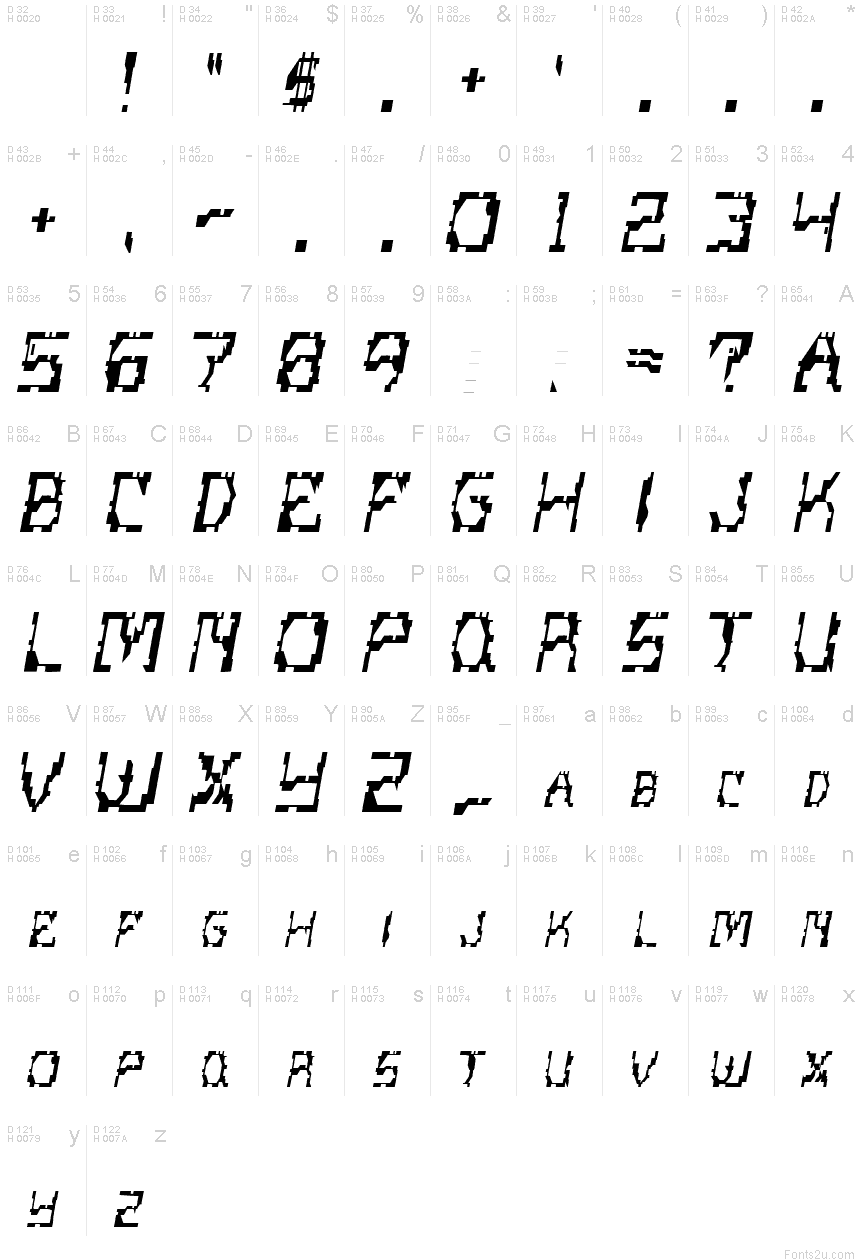
Scritzy Regular
Scritzy, by Ray Larabie, is a free eroded display font with a hard-edged, chopped-up rhythm that feels halfway between distressed signage and jagged techno lettering. The caps lean on blunt diagonals, blocky slabs, and bite-like gaps that keep the letters looking fractured rather than rough.
That makes it a natural fit for poster titles, game logos, zine covers, club flyers, and short packaging headlines where a free font needs grit without turning grunge-soft. Use it for title cards, cover lines, or monogram-style initials when you want the broken edges to do the styling and the angular silhouette to keep the word compact and forceful.